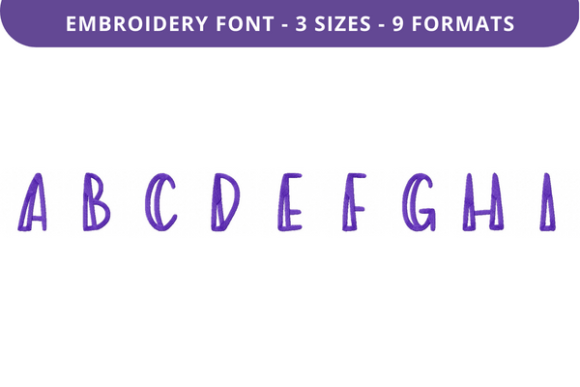
Flat Alfredo Font Uppercase a to I
If you're looking for a versatile and stylish embroidery font that can elevate your creative projects, Flat Alfredo Font Uppercase a to I is a great choice. This font isn't just for aesthetics—it's designed with practicality in mind, making it an excellent tool for those who want to add personalized touches to their fabric-based designs.
What Is Flat Alfredo Font Uppercase a to I?
Flat Alfredo Font Uppercase a to I is a modern, clean, and elegant embroidery font that features uppercase letters from A to I. Its flat design gives it a contemporary look that works well across various applications, whether you're creating custom gifts, branding materials, or decorative items. Unlike traditional serif or script fonts, this style offers a minimalist yet sophisticated appearance that stands out on fabric.
Where Can You Use Flat Alfredo Font Uppercase a to I?
This font is ideal for anyone who works with fabric, including hobbyists, small business owners, and designers. It’s perfect for use in:
- Personal Projects: Adding names, dates, or special messages to clothing, towels, or DIY crafts.
- Business Applications: Creating branded merchandise like t-shirts, tote bags, or promotional items.
- Event Decor: Designing signage, banners, or table numbers for weddings, birthdays, or corporate events.
- Education: Crafting classroom materials, name tags, or motivational quotes for students.
- Digital Use: Incorporating the font into digital designs, such as social media graphics or online store banners.
Why Choose Flat Alfredo Font Uppercase a to I?
The key reason people choose this font is its versatility and ease of use. It's not just about looks—it's about functionality. Whether you're working on a personal project or a commercial one, this font provides a consistent and professional finish. Its flat design ensures that the text remains legible even when embroidered at different sizes or on various fabrics.
Real-World Use Cases
Let’s explore some realistic scenarios where Flat Alfredo Font Uppercase a to I can make a difference:
For Small Business Owners
Imagine you run a boutique that sells custom embroidered items. Using this font can help you create unique, eye-catching designs that stand out on your product listings. Customers are more likely to notice and remember your brand if your logos and labels are visually appealing and easy to read.
For Educators
A teacher might use this font to create personalized name tags for students or motivational posters for the classroom. The clean, modern look makes it ideal for educational settings where clarity and professionalism are important.
For Freelancers and Creators
Freelancers who offer embroidery services can benefit from this font by offering it as part of their design toolkit. Clients appreciate the ability to customize their products with names, dates, or quotes that reflect their personal style.
For Hobbyists
If you enjoy DIY projects, this font can enhance your handmade creations. From personalized baby clothes to custom kitchen towels, using Flat Alfredo Font Uppercase a to I adds a touch of elegance and individuality to your work.
What Should You Consider Before Using It?
Before diving into using Flat Alfredo Font Uppercase a to I, there are a few things to keep in mind:
- Compatibility: Ensure your embroidery machine supports the file formats included with the font.
- Design Layout: Think about how the text will fit on the fabric. Consider the size, placement, and overall design to ensure the final result looks balanced and professional.
- Quality of Fabric: Some fabrics may require adjustments in stitch density or thread type to achieve the best results.
- Learning Curve: If you're new to embroidery, take time to practice with simple designs before moving on to more complex ones.
Conclusion
Flat Alfredo Font Uppercase a to I is more than just a font—it's a valuable tool for anyone involved in creative or commercial embroidery. Whether you're a hobbyist, entrepreneur, educator, or designer, this font offers a blend of style, functionality, and versatility that can elevate your projects. With its clean design and multiple file formats, it’s an excellent choice for those looking to personalize their fabric-based creations with confidence and creativity.